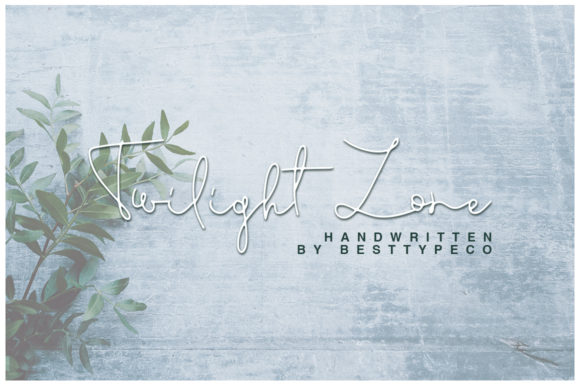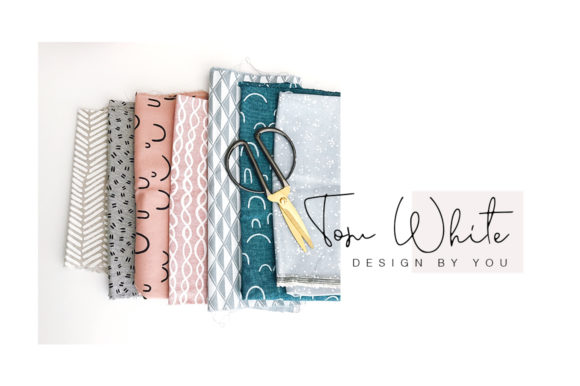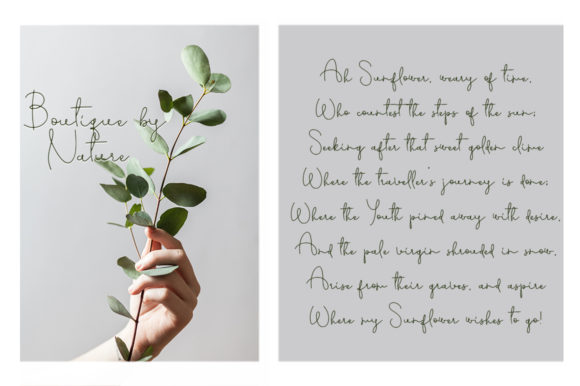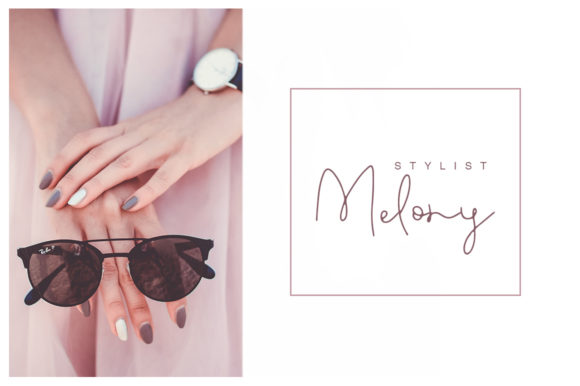
Twilight Zone Font
About Twilight Zone Font
Twilight Zone is a fun and friendly script with a unique style. It will turn any design project into a true standout!